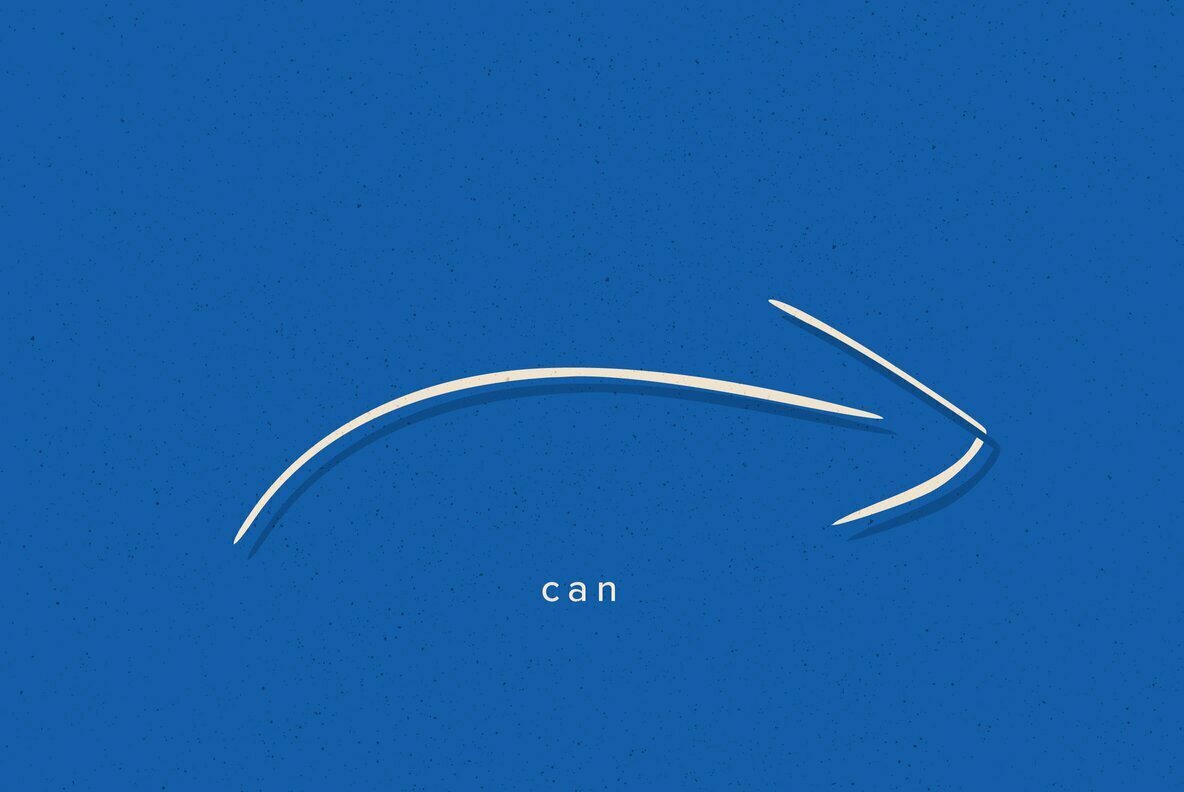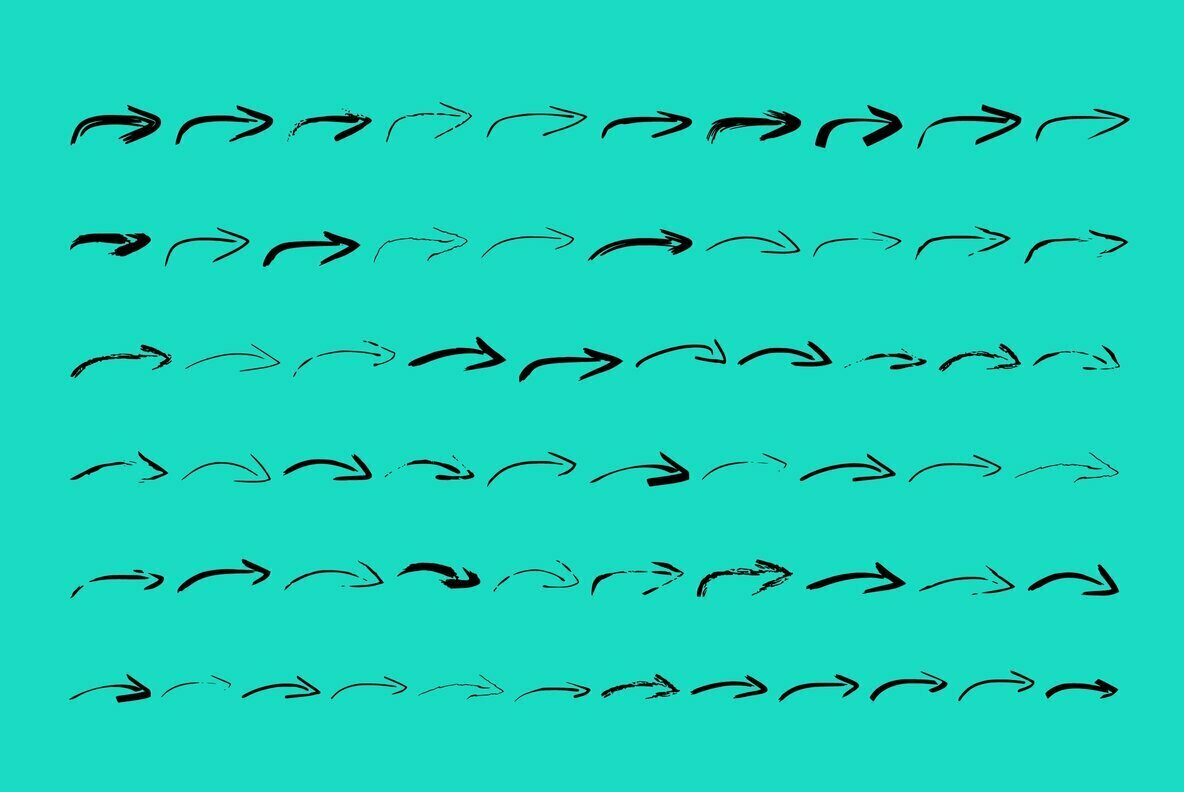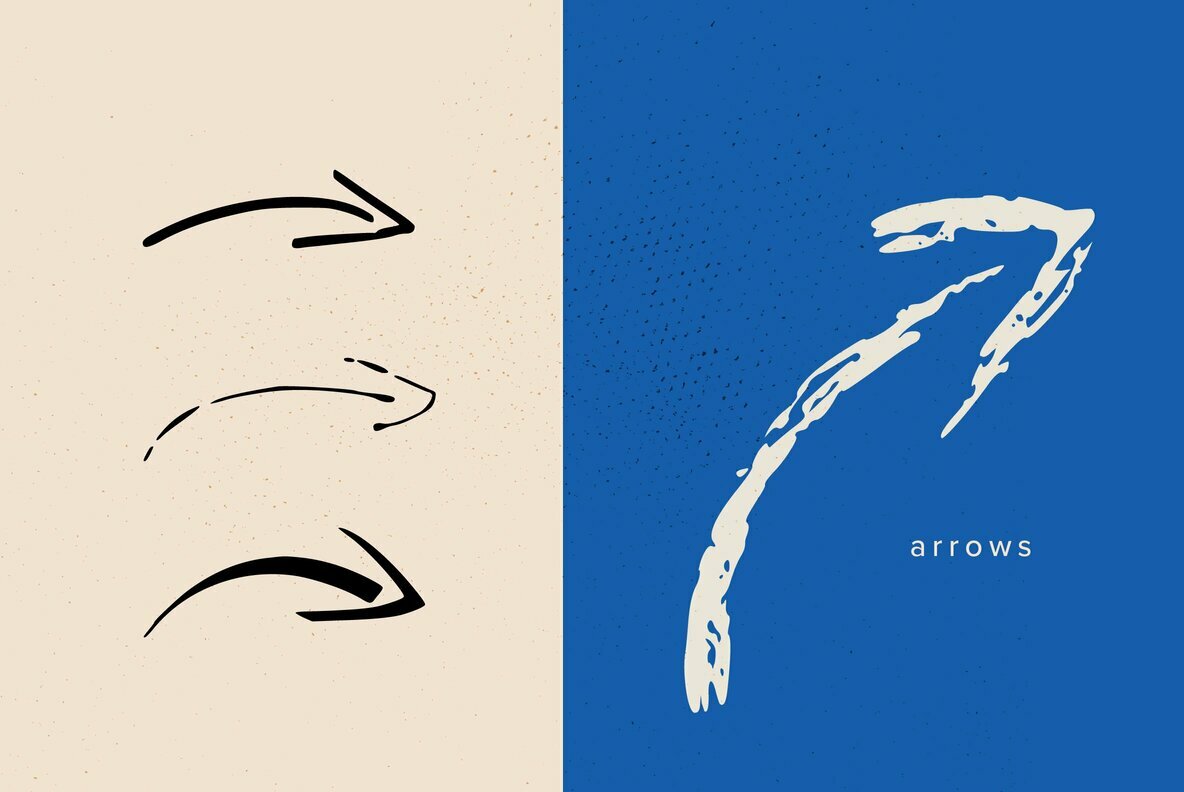
BM Graphics Arrows Font
BM Graphics Arrows
A set of 75 different glyphs in a massive range of styles and designs. Great for quickly adding graphics to a design or line of text. Export to create icons, crafts and more!